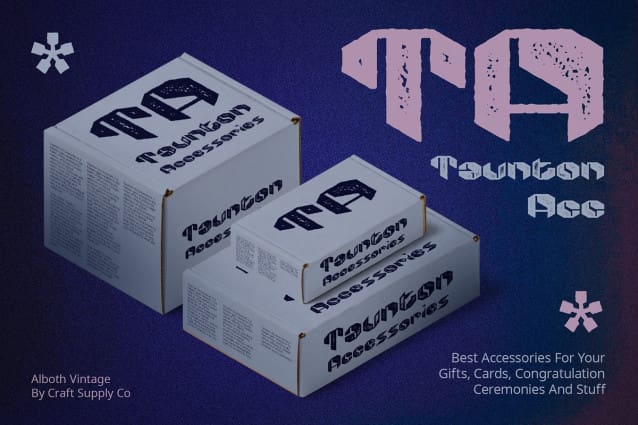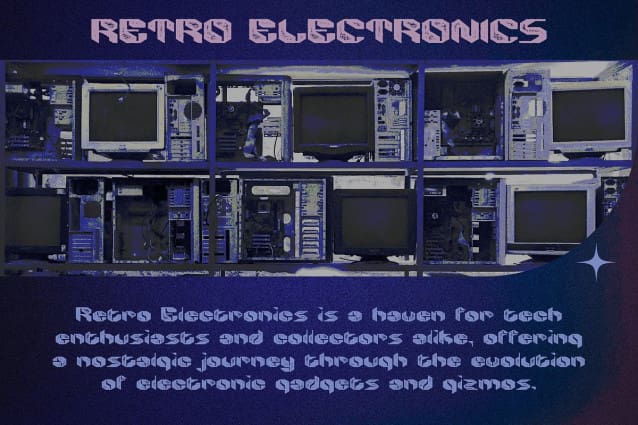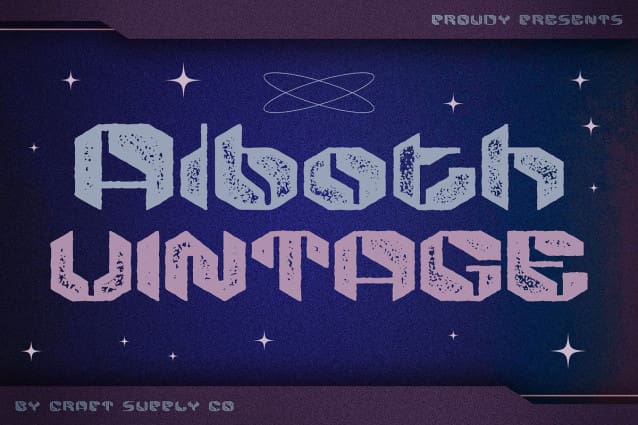
Alboth Vintage Font
Alboth Vintage Font: Retro Futuristic Geometry. Geometric Robot Inspiration Alboth Vintage draws inspiration from geometric shapes and the sleek lines of robots, resulting in a futuristic and eye-catching design.
Vintage Stamp, Drawn, and Rough Effects With vintage stamp, drawn, and rough effects, this font exudes a sense of nostalgia and authenticity, adding character and texture to your designs.
Perfect for Display Ideal for display purposes, This font commands attention with its bold and distinctive appearance. It makes a statement in headlines, logos, posters, and more.
Versatile Application Despite its vintage-inspired design, This font is versatile and can be used across various design projects, from branding and packaging to digital and print media.
Futuristic Nostalgia This font combines futuristic geometric shapes with vintage effects, resulting in a font that captures both the past and the future. Its versatility and striking design make it a valuable asset for designers looking to infuse their projects with retro charm and modern flair.